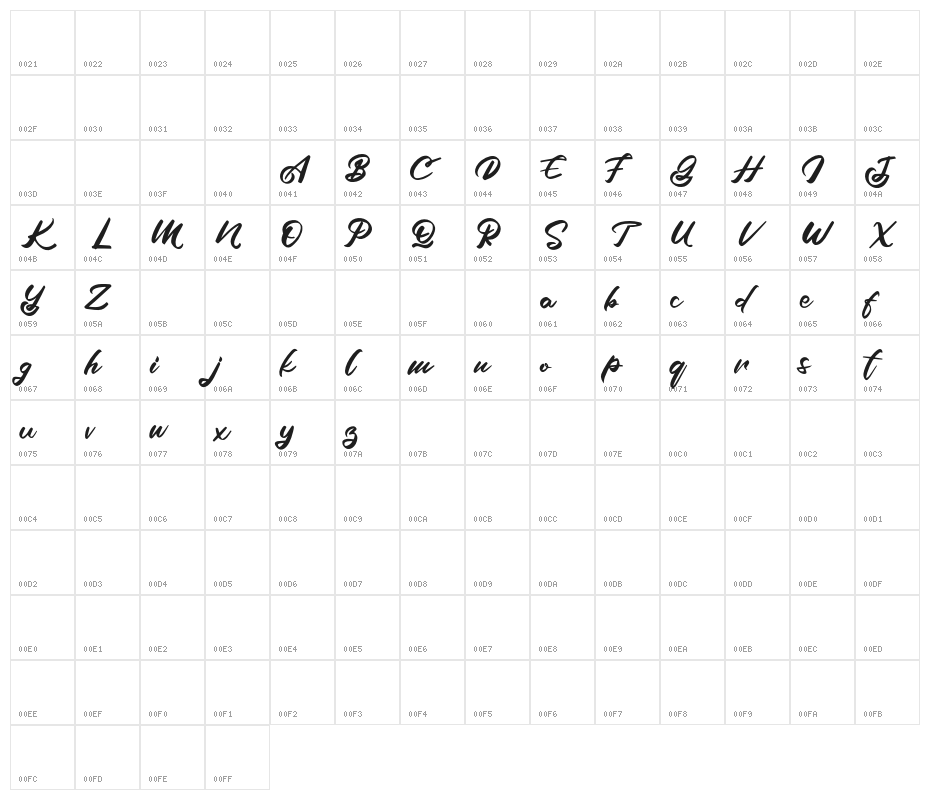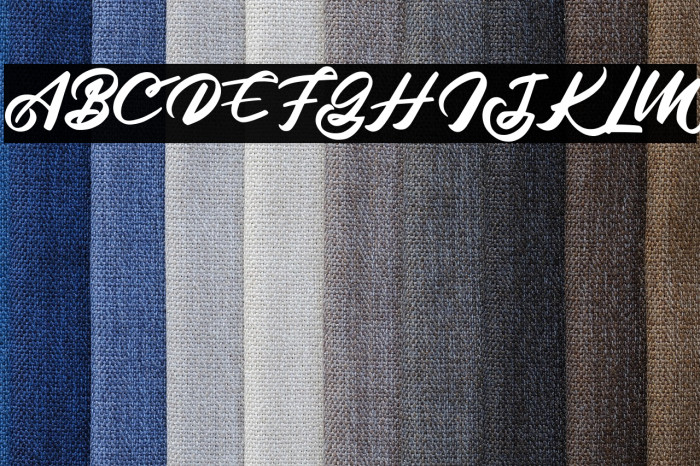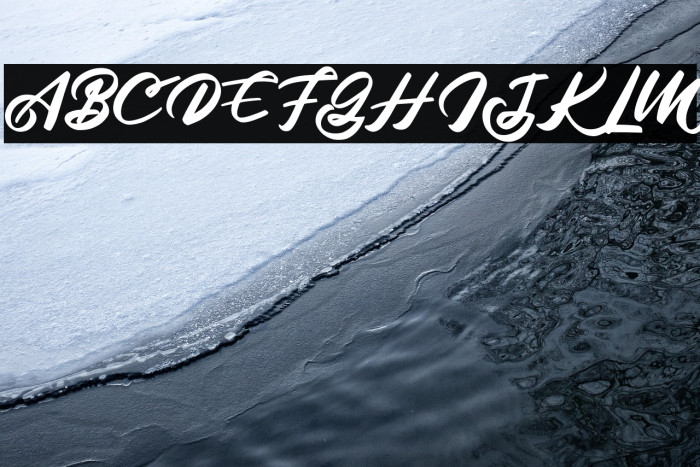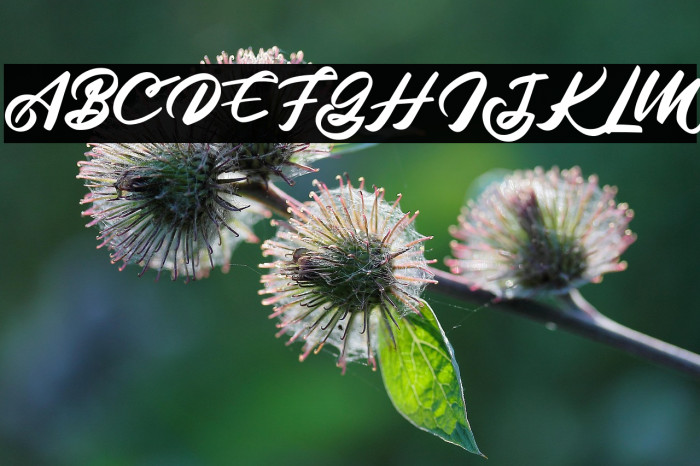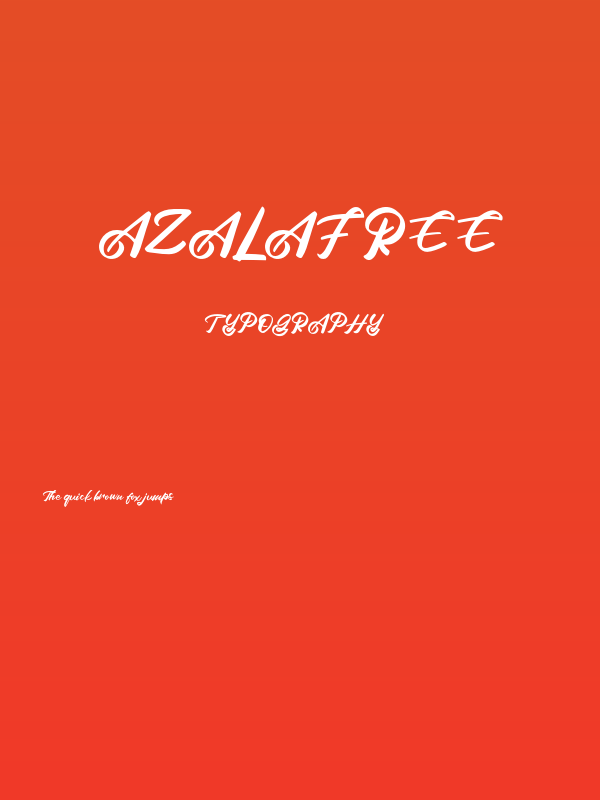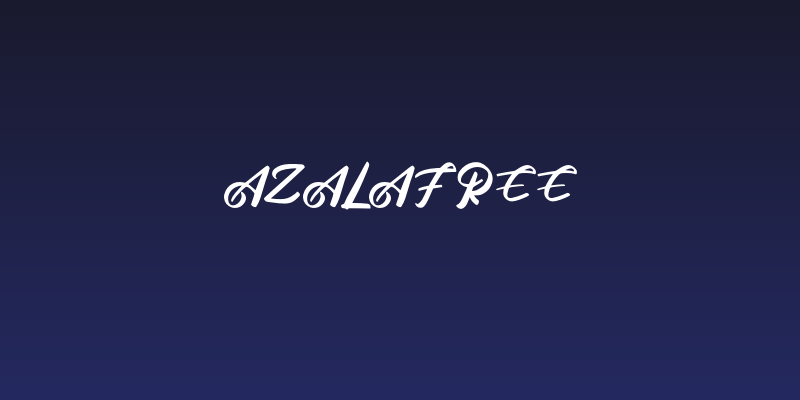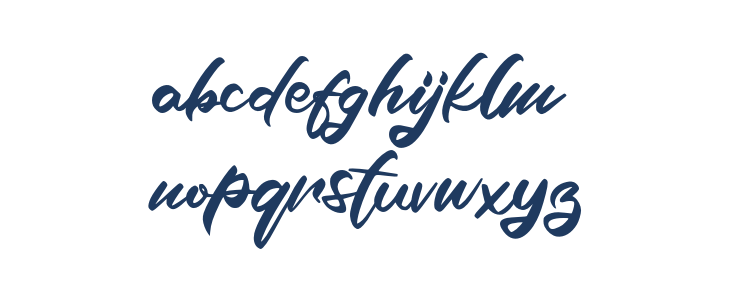
AzalaFREE Font
AzalaFREE Description
This font features a bold, cursive style with a flowing, handwritten appearance. The uppercase letters are elegantly crafted with sweeping curves and flourishes, giving them a dynamic and expressive look. The lowercase letters maintain a consistent style, with smooth connections between characters that enhance the script's fluidity. The overall design is both artistic and legible, making it suitable for creative projects that require a touch of elegance and personality. The font's bold weight and medium contrast in stroke thickness add to its visual impact, making it stand out in various applications.
| Use Case | Logos, Headlines, Invitations |
| Proposed Projects | Ideal for wedding invitations, greeting cards, branding, and logo design. |